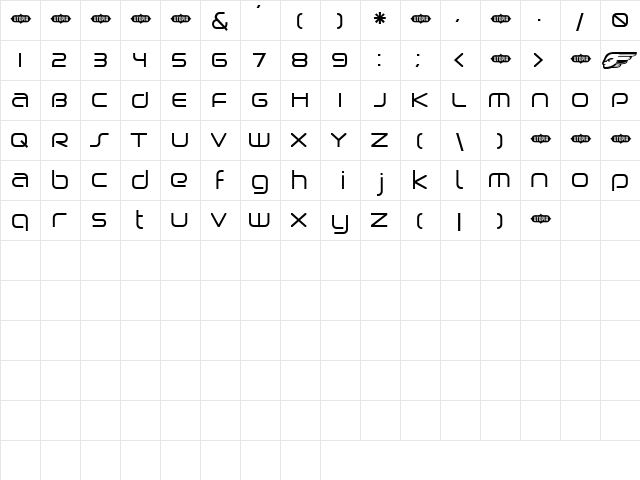
Birdman Regular
Design Context for Birdman Typeface
Birdman takes a measured approach to typography — its balanced proportions and neutral character make it a reliable workhorse for both digital and print work.